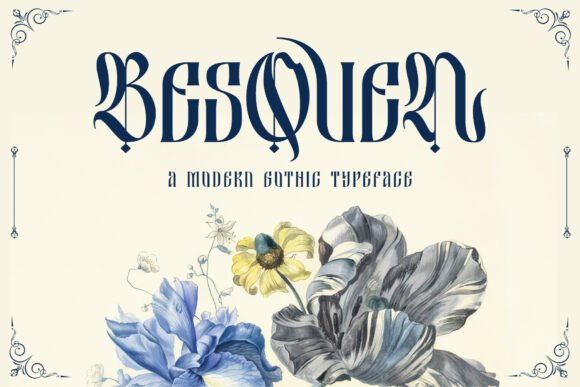
The Elegant World of Besquen Font: A Modern Gothic Masterpiece
I’ll never forget the moment I stumbled upon the Besquen font while working on a medieval-themed branding project for a luxury candle company. My client wanted a font that exuded elegance, sophistication, and a hint of mystery. I had spent hours scouring the internet for the perfect typeface, but nothing seemed to fit the bill. That was until I discovered Besquen – a refined modern gothic font that instantly captured the essence of my client’s vision.
An Honest Review of Besquen Font
What I Love About Besquen ✨
• 💫 Dramatic curves and sharp ornamental strokes that add a touch of luxury to any design
• Highly readable for both modern branding and editorial design
• 🎨 Stylish vertical contrast that gives Besquen a unique and eye-catching flair
• 🔍 Classic blackletter inspiration with a contemporary twist
While Besquen is an exceptional font, there are a few things to keep in mind:
• 🤔 Some characters may require manual kerning for optimal spacing
• ⚠️ Not ideal for body text due to its ornate nature
The Backstory of Besquen Font
Besquen was designed by a team of typographers who sought to blend the classic elegance of blackletter fonts with the sophistication of modern design. Inspired by medieval manuscripts and illuminated letters, they created a font that would evoke a sense of luxury and refinement. With its dramatic curves and sharp ornamental strokes, Besquen is the perfect choice for designers looking to add a touch of medieval mystery to their work.
Q: What is the history behind Besquen font?
A: Besquen was designed by a team of typographers who sought to blend classic blackletter inspiration with modern elegance.
Q: Is Besquen suitable for body text?
A: While Besquen is highly readable, its ornate nature makes it better suited for headlines and titles rather than body text.